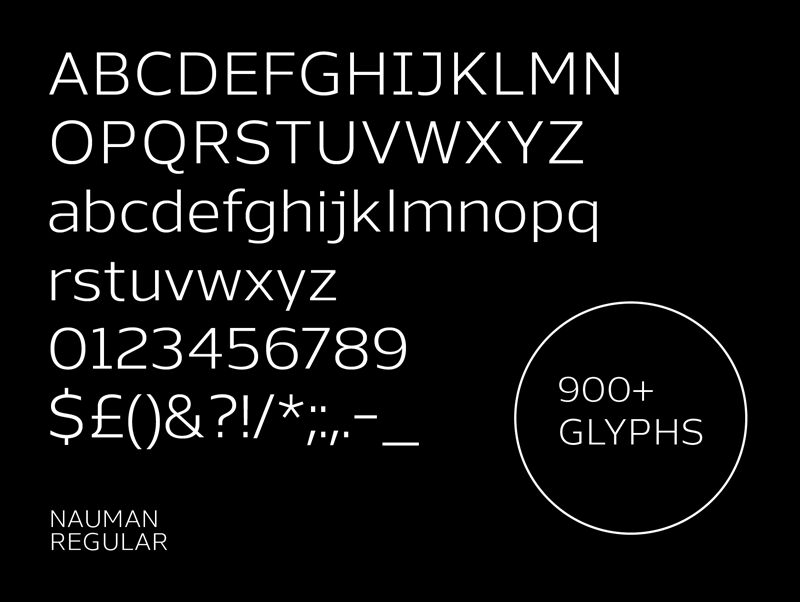
Nauman, crafted by The Northern Block, is a modern humanist sans serif typeface designed specifically for the screen. It combines broad open letter forms with precise geometry, ensuring functionality and legibility in web and on-screen applications. Nauman's aesthetic appeal lies in its clean lines and balanced proportions, making it both visually striking and easy to read.
The font boasts over 900 characters with diverse features including seven numeral variations like inferiors, superiors, fractions, tabular, lining, and old style. Additional elements such as alternate lowercase letters (a, e, I, M), small caps, arrows, and extensive language support enhance its versatility.
Ideal for a range of digital designs-from websites to app interfaces-Nauman’s streamlined elegance ensures it stands out while maintaining readability across various contexts.